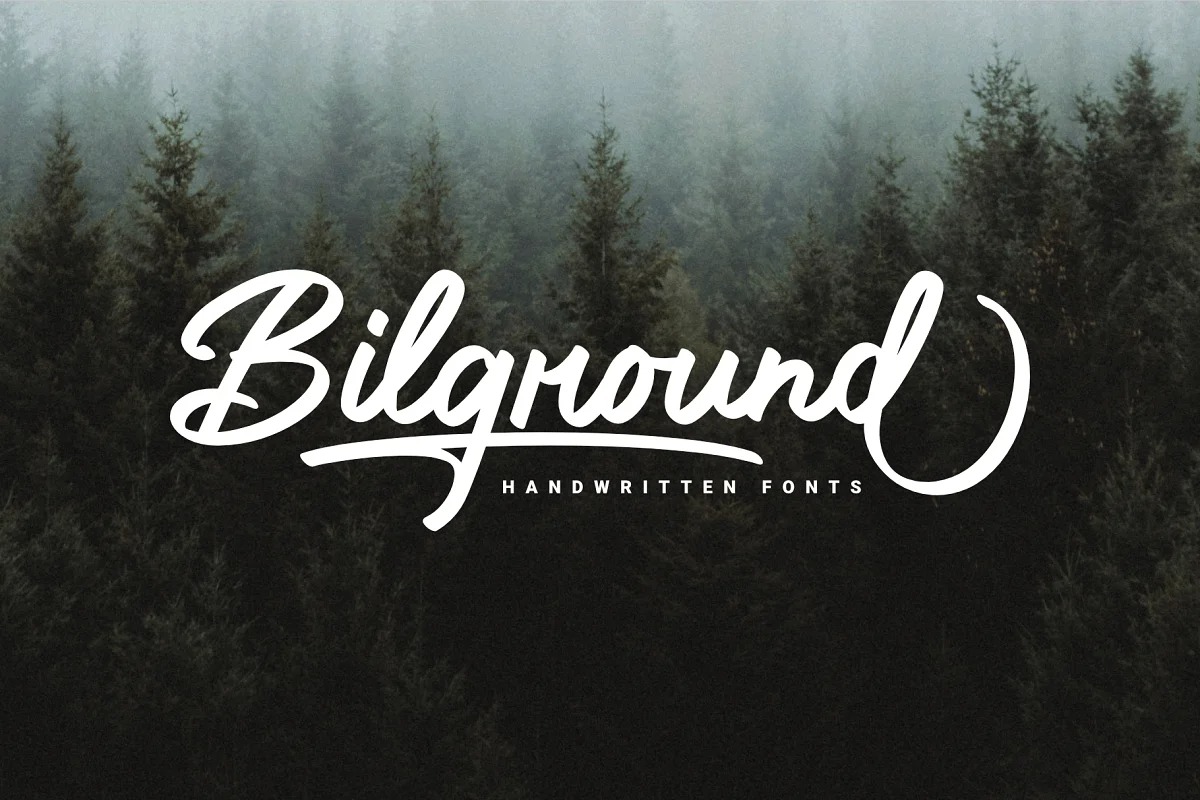
Bilground Script Font
This is a fancy handwritten script ttypeface manufactured by Prioritype Co. With regular rough contrast stroke, fun character with a bit of ligatures and alternates. Beautiful handwritten fonts with strong characters are now here to accompany your design projects. You can apply it to wedding designs, logos, quotes, social media posts, video content display etc.